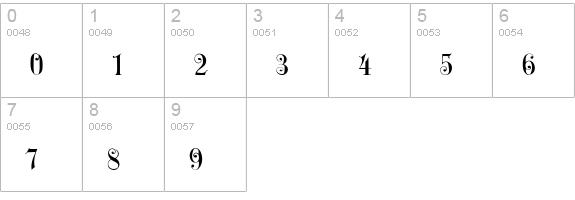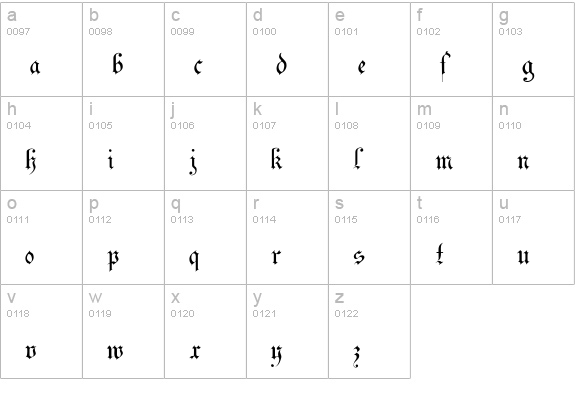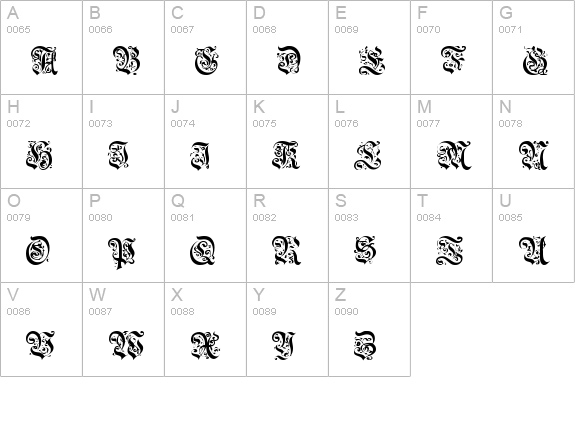
Uechi Gothic Font Details
Introducing Uechi Gothic, a captivating and versatile font that combines modern aesthetics with a touch of elegance. This font showcases a unique blend of sharp edges and smooth curves, making it perfect for a wide range of design projects. With its bold and commanding presence, Uechi Gothic exudes confidence and strength, making it an ideal choice for headlines, titles, and logos. Whether you are designing a striking poster, crafting a stylish branding project, or creating eye-catching social media graphics, this font will effortlessly elevate your designs to new heights. But what truly sets Uechi Gothic apart is its versatility and adaptability. This font seamlessly transitions from a contemporary and edgy style to a more refined and sophisticated look, making it suitable for both modern and classic design concepts. Its clean and legible letterforms ensure clear communication, while still allowing for a touch of artistic flair. Furthermore, Uechi Gothic is freely available to download at FontsMarket.com. This means that you can easily access and utilize this incredible font to enhance your creative endeavors without any cost or limitations. Whether you are a professional designer or a hobbyist, this free font offers you the opportunity to create stunning visuals and make a lasting impression. So unleash your creativity and explore the endless possibilities that Uechi Gothic presents. Download this remarkable font today from FontsMarket.com and embark on a design journey that is both captivating and free. Let Uechi Gothic be your trusted companion in creating visually striking and unforgettable designs.